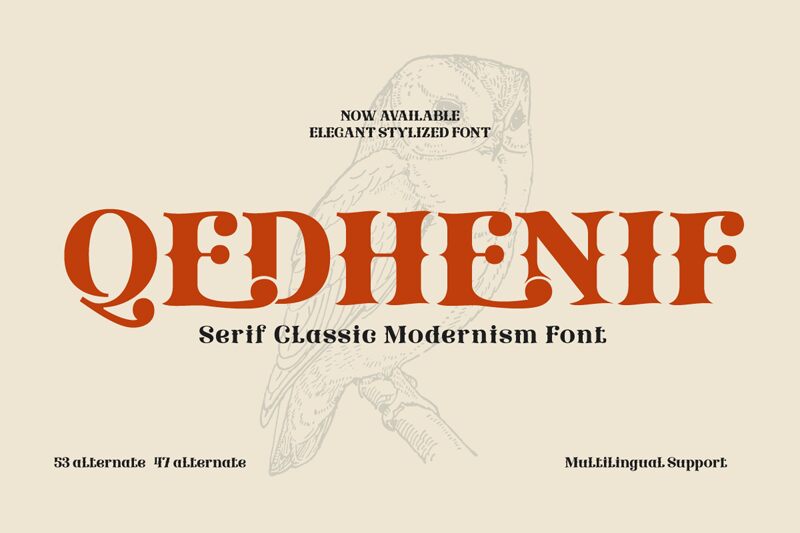
Qedhenif font by Twinletter is a bold display retro blackletter font that exudes both elegance and legibility. This bold typeface captivates attention with its ornamental finish, traditional flair, and daring high contrast. Perfect for display, the font takes inspiration from gothic vintage designs and adds elements from different iconic eras to create a visually striking type that is both antique and artistic with a rich presence in every character, letterform and number.
This bold display retro blackletter is designed to complement any creative project you have in mind so you won’t have to struggle with inspiration! Project for branding purposes? Qedhenif works great in logotype as it stands out of it’s own! Just what you need when adding them as headline elements on websites or printed collaterals! This typeface makes a statement simply through hierarchal file text usage paired along side dot infographics visuals make audiences take notice immediately of the unique structure utilized within each glyph keeping compositions clean & structured.